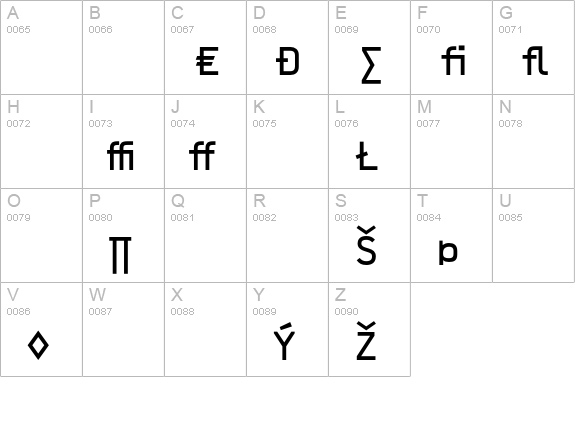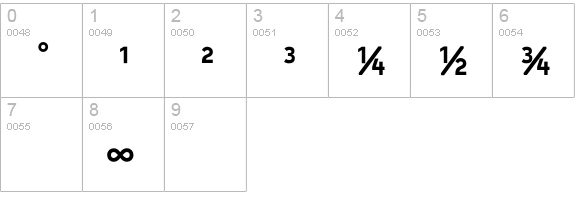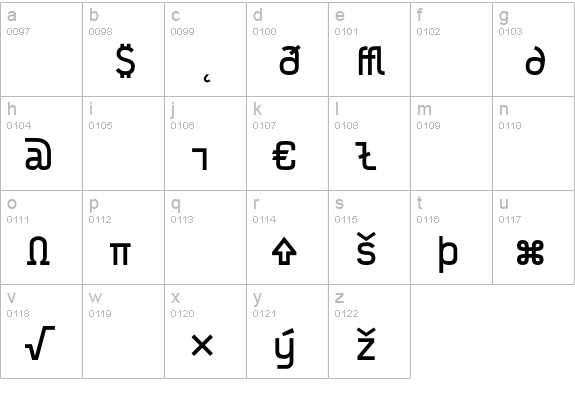
Typestar-OCRExpert Font Details
Introducing Typestar-OCRExpert, a revolutionary font designed to bring a touch of professionalism and elegance to your projects. With its clean and refined lines, this font is perfect for both print and digital mediums, offering a unique and sophisticated look that will captivate your audience. Typestar-OCRExpert is not only visually appealing, but it also boasts exceptional legibility, making it an ideal choice for various applications, such as branding, advertising, editorial design, signage, and much more. Its carefully crafted letterforms ensure that every word stands out with clarity and precision, enhancing the overall reading experience. But what sets Typestar-OCRExpert apart from other fonts is its versatility. Whether you're aiming for a classic and timeless feel or a modern and cutting-edge aesthetic, this font can adapt to your needs effortlessly. Its extensive range of weights and styles allows you to experiment with different looks, giving you the freedom to create something truly unique. And the best part? Typestar-OCRExpert is available for free! We believe that great design should be accessible to everyone, and that's why we have made this font freely available to download at FontsMarket.com. Now, there are no barriers to getting your hands on this remarkable font and elevating your designs to a whole new level. So why wait? Take advantage of this incredible opportunity and enhance your projects with Typestar-OCRExpert. Download it now from FontsMarket.com and let your creativity soar.